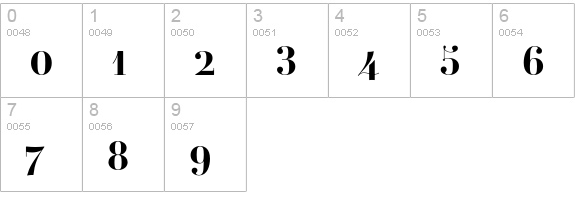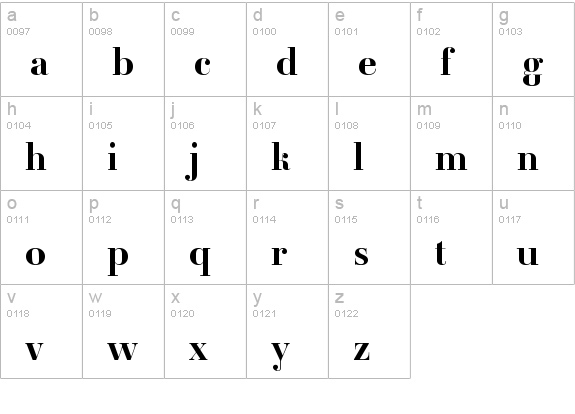
Ambroise Demi Font Details
Ambroise Demi is a sub-bold, structured variant in the Ambroise typeface family \xE2\x80\x94 well suited to sub-headlines and emphasised passages.
Ambroise Demi font is a modern and elegant typeface that strikes the perfect balance between sophistication and readability. With its clean lines and slightly condensed form, this font exudes a sense of refined style and professionalism. The semi-bold weight of Ambroise Demi adds a touch of boldness and emphasis to any text, making it ideal for headlines, titles, and other prominent design elements. What sets Ambroise Demi font apart is its versatility - it can be used across a wide range of design projects, from print materials to digital media. Whether you're creating a sleek branding package or designing a sleek website, Ambroise Demi font will elevate your work to the next level. Best of all, Ambroise Demi font is free to download at FontsMarket.com, making it accessible to designers and creatives of all levels. Don't miss out on the opportunity to add this stunning typeface to your font library today!